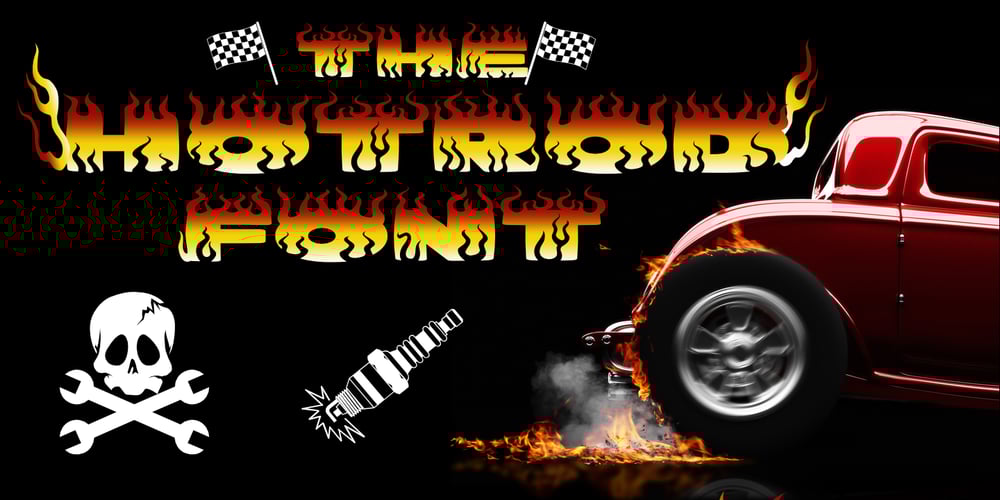
Hotrod
Hotrod font
Hotrod Font Family was designed by Otto Maurer and published by Otto Maurer. Hotrod contains 2 styles and family package options. HotRod the Flame Font. Hot Font in 50th Flames Style. Made for all US Custom Cars Fans. The Font comes with many Graphics for Vintage Cars like Dices and Skulls